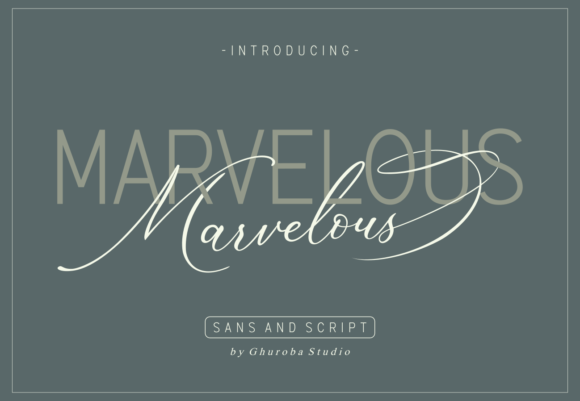
Marvelous Font Duo
Hello Guys! This is a gorgeous font duo that unites condensed sans serif & signature script together into a package. Introducing Marvelous. Marvelous Font Duo is a stunning pair of beautiful script and sans fonts, which are designed to complement each other with elegant beauty and a contemporary style. It’s perfect for branding, invitations, business cards, weddings, logo, quotes, product packaging and much more.